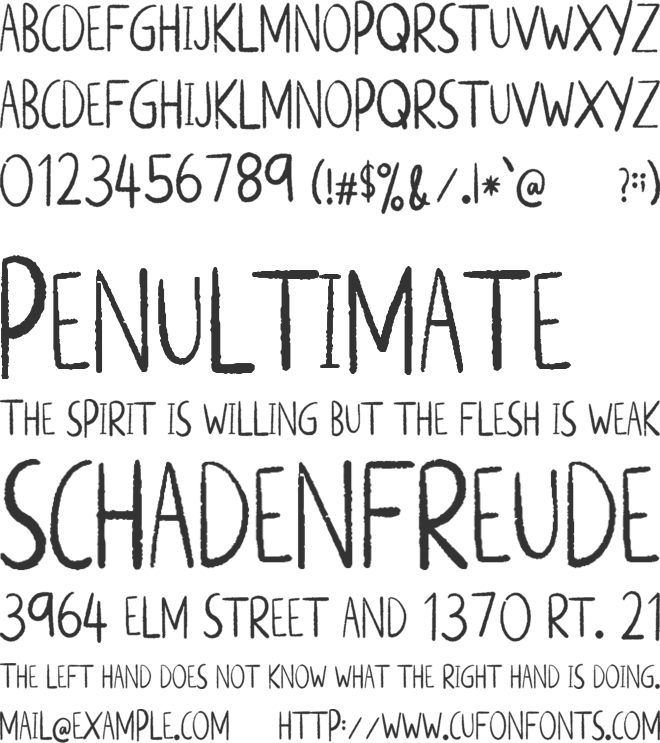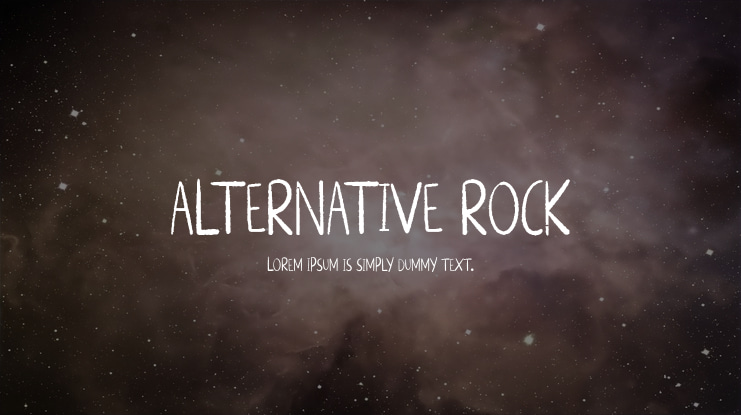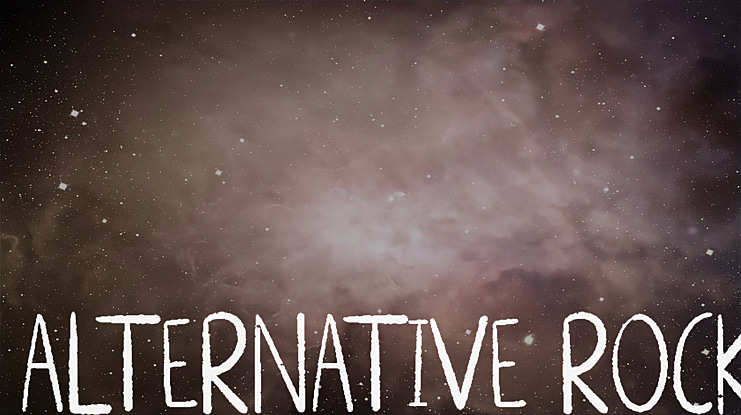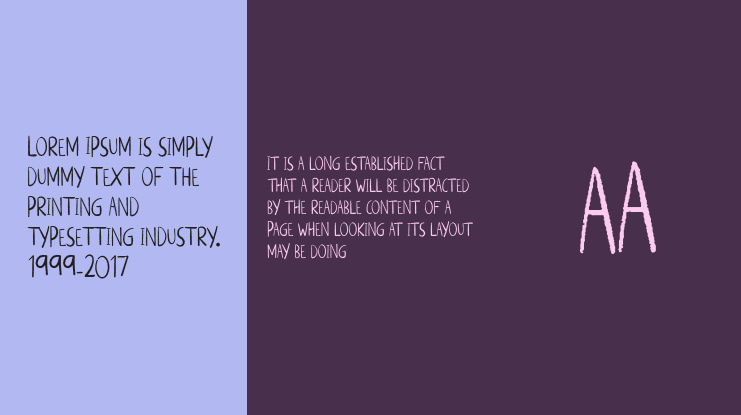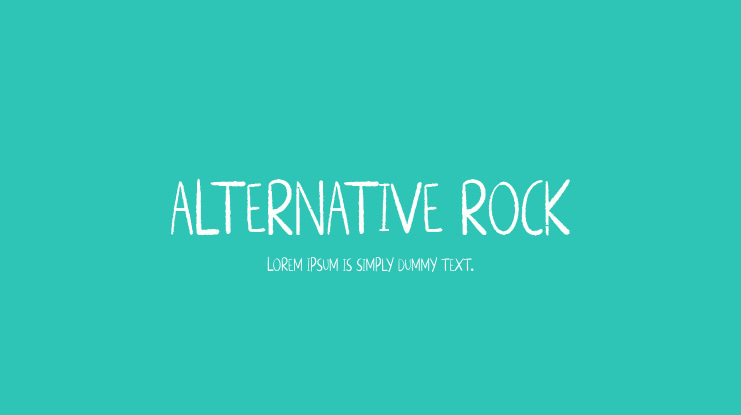
ALTERNATIVE ROCK Font Family
Alternative Rock is a trendy display font inspired by summer music festival vibes. This hand drawn font will give a boost of adrenaline and elevate any of your creative projects!
Alternative Rock Font best uses for poster, cover, logo, branding, social media post, advertising and many more!